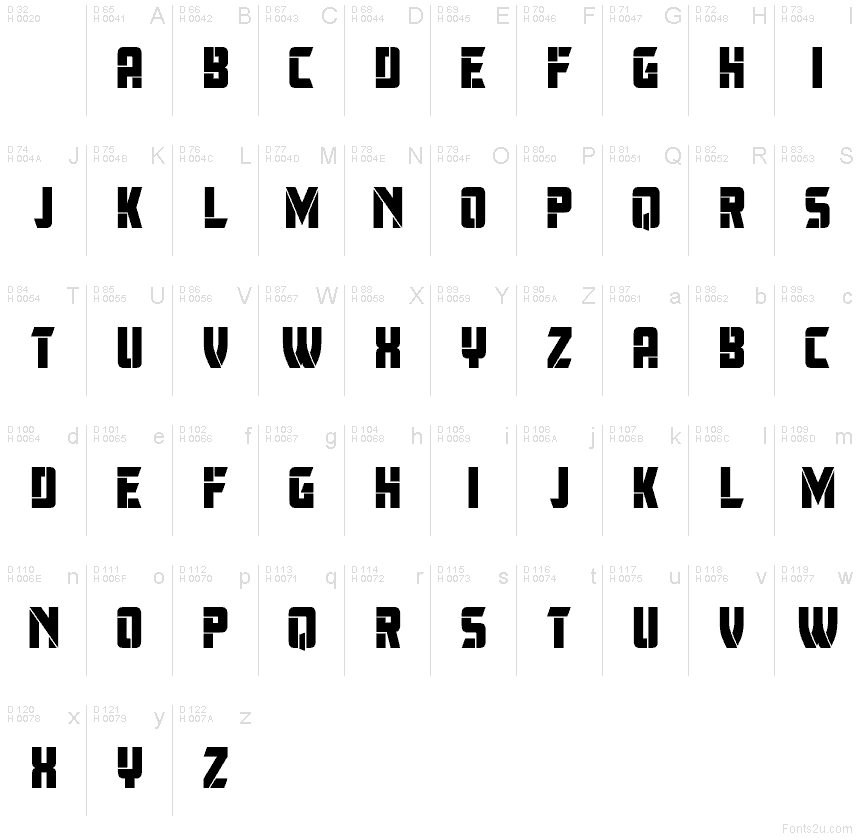
Napolitanica Straight Regular
Napolitanica Straight font by Vladimir Nikolic is a free decorative display typeface with a bold, architectural presence. Each letter feels carved from a solid block, with tight right angles, stepped corners, and clean verticals that slice through the black shapes like light through a façade. The result is a striking rhythm that reads almost like a neon sign turned into solid ink—strong, legible, and unapologetically graphic.
Using Napolitanica Straight, you get a headline style that instantly brands anything it touches, from posters and album covers to event flyers, esports graphics, book titles, and bold logos. This free font shines at large sizes where its sharp edges and maze-like interior cuts can really be appreciated. Pair it with a simple geometric sans serif for body text, keeping the supporting type small and quiet so Napolitanica Straight can do the heavy visual lifting.